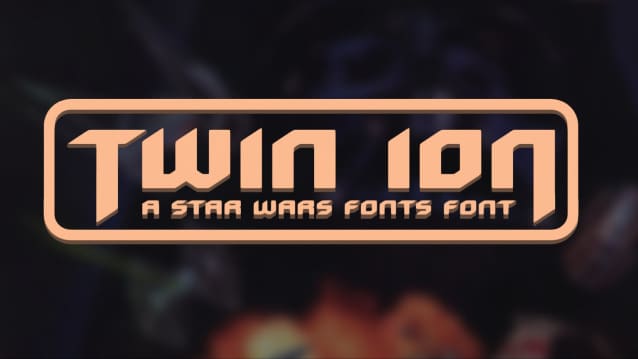
Twin Ion Font
Twin Ion Font a strong, confident and powerful typeface designed to suit sports logos, club branding, apparel applications, labels and more.
Typeface inspired by the title design of Star Wars: Tie Fighter (1994). Comes in both regular (Fighter) and wide (Bomber) styles. Lowercase has alternate letters for B, J, M, N, P, R, and W. Language support. v1.0
Open the glyphs window in whatever app you’re using to find additional alternates with flat tops and pointed verticals.